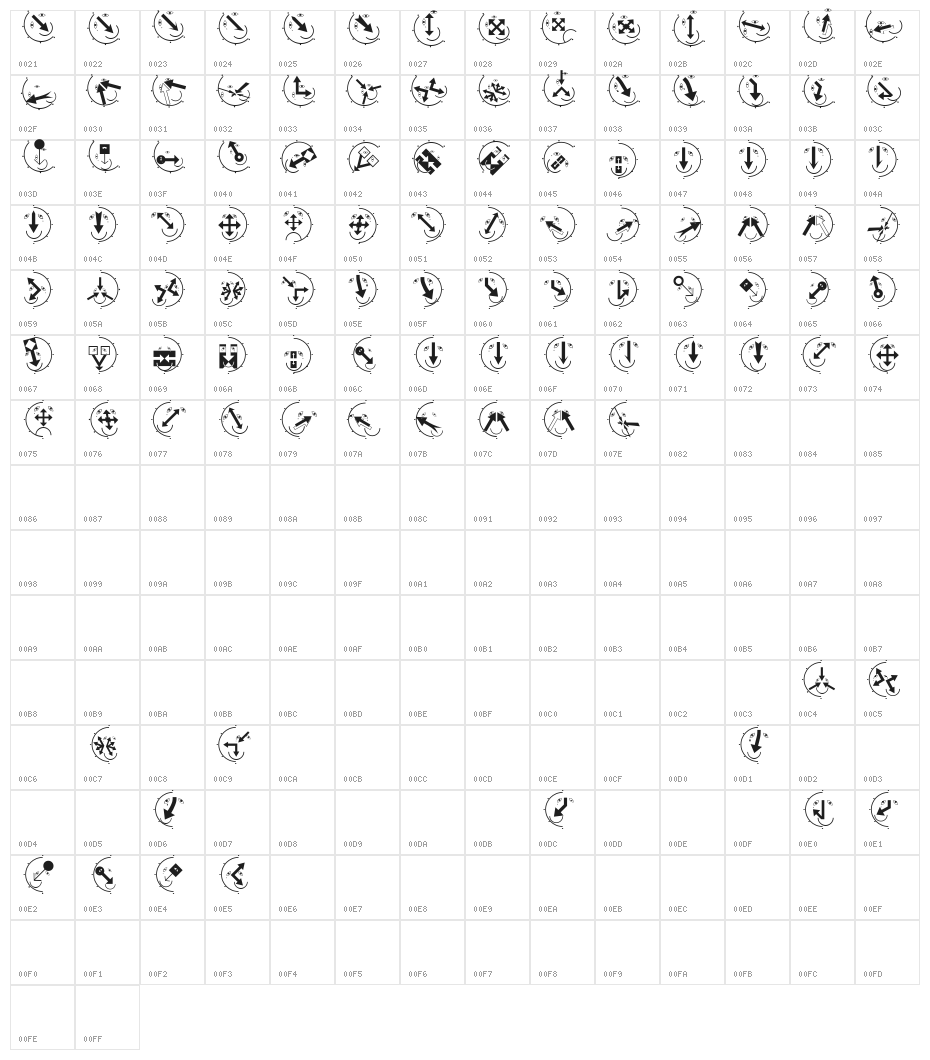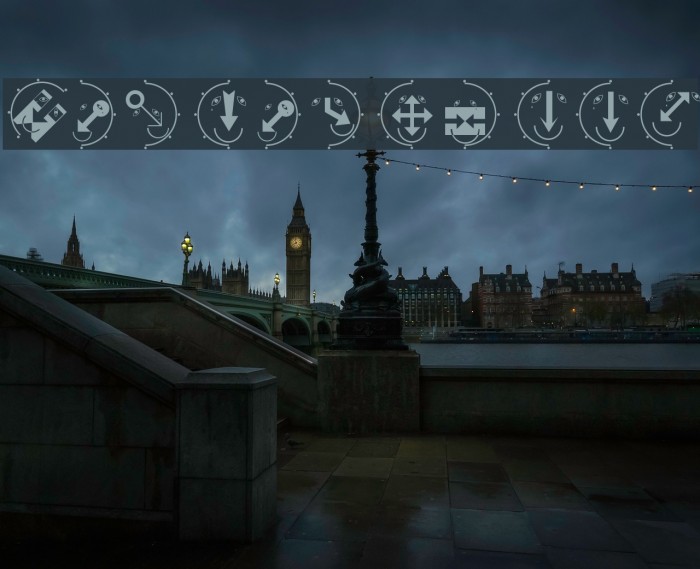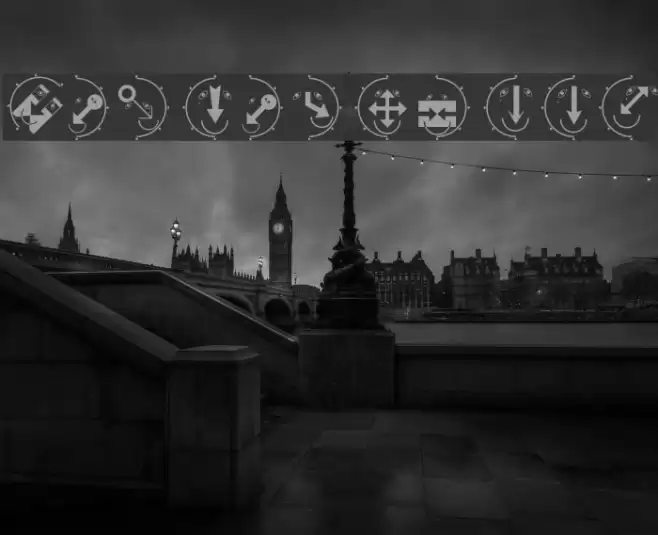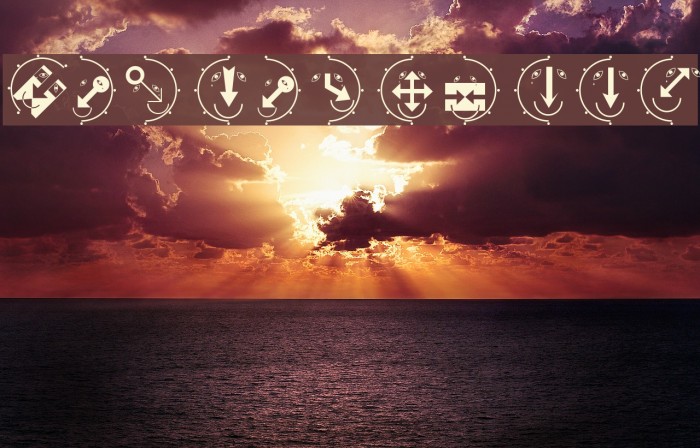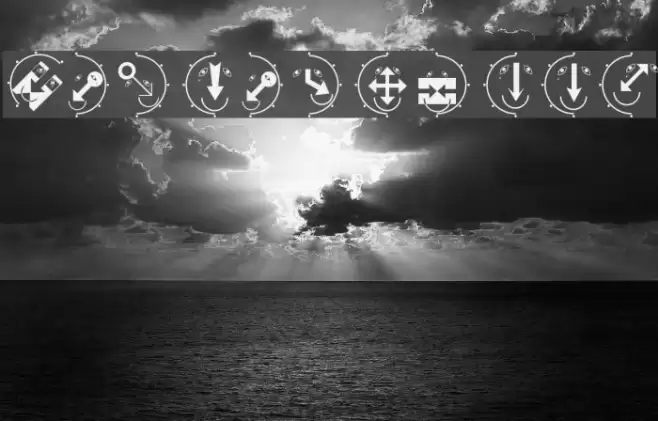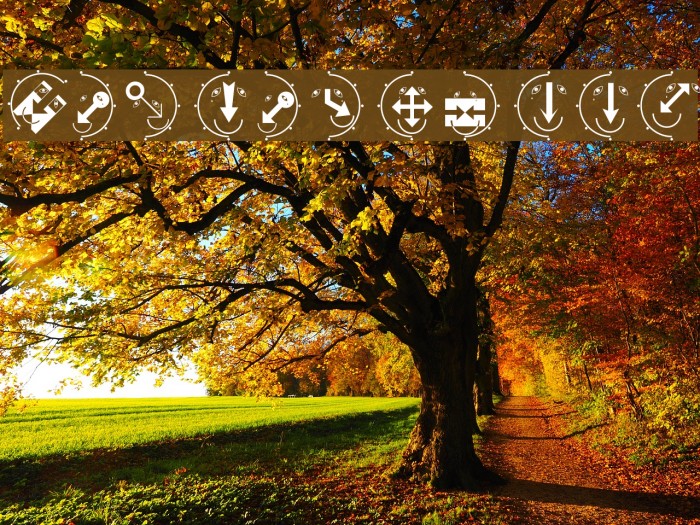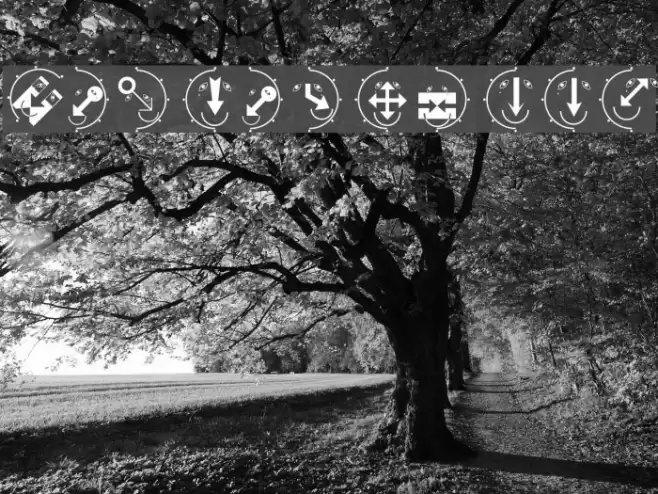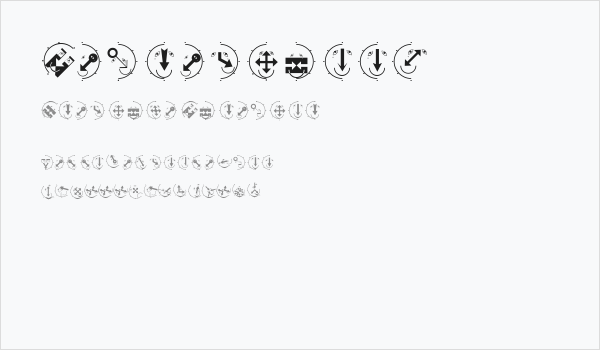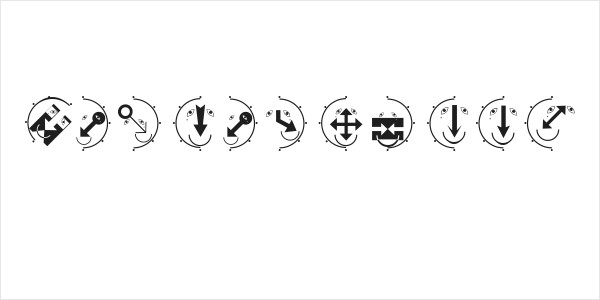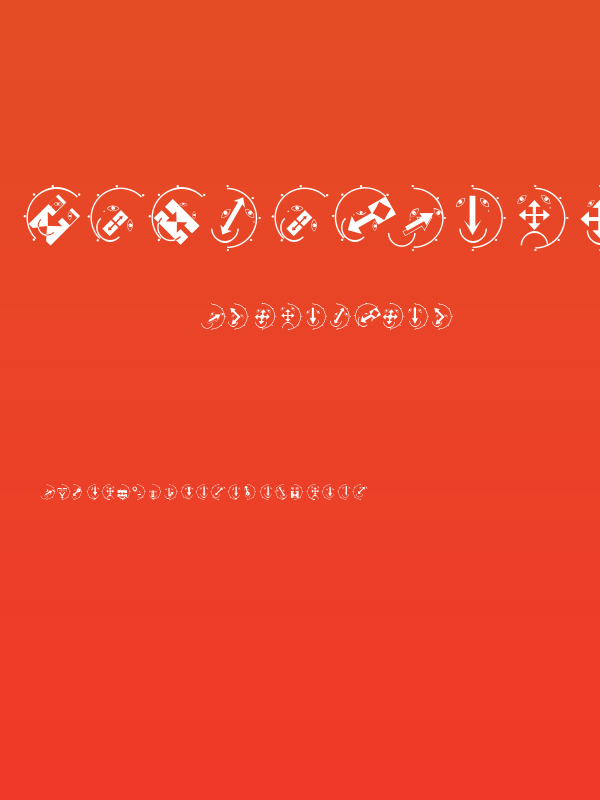
Decreations Font
Decreations Description
This font features a highly decorative and abstract design, incorporating geometric shapes and intricate patterns within each character. The letters are encased in circular motifs, giving them a unique and artistic appearance. The style is reminiscent of modern art, with a playful yet sophisticated aesthetic. Each character is distinct, making it suitable for creative and unconventional projects. The font's complex design may not be suitable for body text but can make a striking impact in headlines or artistic displays.
| Use Case | Headlines, Artistic displays, Branding |
| Proposed Projects | Ideal for artistic posters, album covers, modern art installations, and unique branding projects. |